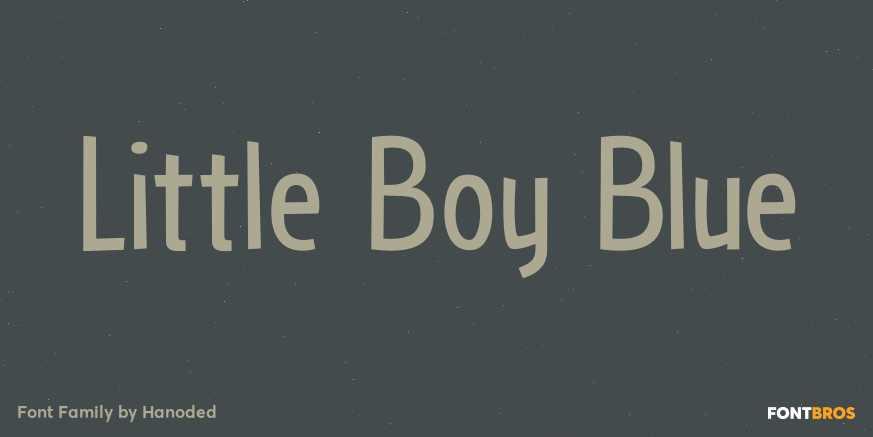
I believe it was Picasso who had a Blue Period between 1901 and 1904. It seems that I have one myself – really not comparing myself to Picasso btw? Recently I created Blue Sheep font and now this one: Little Boy Blue. Little Boy Blue is a very legible,…